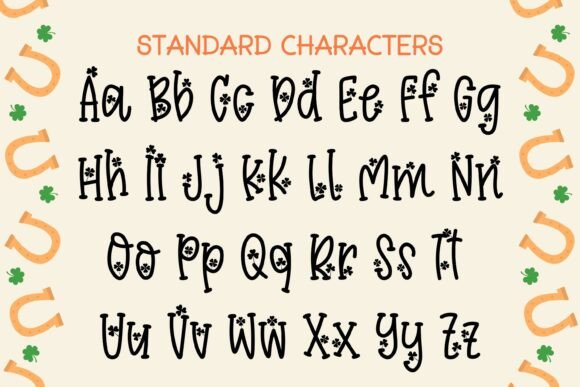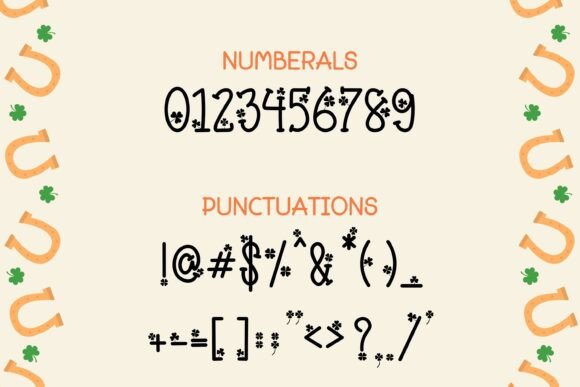
Clover Pop Font: Add a Touch of Luck and Whimsy to Your Designs 🍀
Are you looking for a font that can bring a dash of luck, cheerfulness, and playfulness to your designs? Look no further than Clover Pop, a delightful display font that’s perfect for a variety of creative projects. This charming font is adorned with lovely clover leaves, making it an ideal choice for St. Patrick’s Day projects, greeting cards, stickers, kids’ designs, logos, posters, social media, crafts, and more.
What Makes Clover Pop Font So Special?
Clover Pop is a carefully crafted font that features small clover details on each character, giving your text a fun, friendly, and unique appearance. The font’s design is inspired by the symbolism of clover leaves, which are often associated with good luck, prosperity, and happiness. With Clover Pop, you can add a touch of whimsy and magic to your designs, making them stand out from the crowd.
Clover Pop font is incredibly versatile and can be used for a wide range of design projects, including:
- St. Patrick’s Day projects: Add a touch of Irish charm to your St. Patrick’s Day designs, such as greeting cards, posters, and social media graphics.
- Greeting cards: Create cheerful and playful greeting cards for special occasions, like birthdays, holidays, and get-well wishes.
- Stickers: Design fun and colorful stickers for kids, parties, or events.
- Kids’ designs: Create engaging and interactive designs for kids, such as children’s books, educational materials, or activity sheets.
- Logos: Use Clover Pop font to create a unique and memorable logo for your business or brand.
- Posters: Design eye-catching posters for events, promotions, or awareness campaigns.
- Social media: Add a touch of personality to your social media graphics, such as Facebook posts, Instagram stories, or Twitter headers.
- Crafts: Use Clover Pop font to create handmade crafts, such as scrapbooking, card making, or DIY projects.
Why Choose Clover Pop Font?
Here are just a few reasons why Clover Pop font is a great choice for your design projects:
- Cute and playful: Clover Pop font is designed to bring a smile to your face, making it perfect for designs that require a touch of whimsy and fun.
- Lucky charm: The clover leaf design element is a classic symbol of good luck, making it a great choice for projects that require a positive and uplifting vibe.
- Unique and eye-catching: The small clover details on each character make Clover Pop font stand out from other fonts, ensuring your designs get noticed.
- Easy to use: Clover Pop font is a display font that’s easy to use and pairs well with a variety of other fonts, making it simple to incorporate into your designs.
Tips for Using Clover Pop Font
Here are a few tips for getting the most out of Clover Pop font:
- Use it sparingly: Clover Pop font is a display font, so it’s best used sparingly to add emphasis or create visual interest.
- Pair it with complementary fonts: Experiment with pairing Clover Pop font with other fonts to create a unique and visually appealing design.
- Experiment with colors: Clover Pop font looks great in a variety of colors, so don’t be afraid to experiment and find the perfect hue for your design.
In conclusion, Clover Pop font is a delightful and versatile font that’s perfect for designers and crafters looking to add a touch of luck, whimsy, and fun to their designs. With its cute and playful design, unique clover leaf details, and ease of use, Clover Pop font is sure to become a favorite in your design arsenal. So why not give it a try and see how it can bring a smile to your face and a touch of magic to your designs? 🍀
| Font Name | Clover Pop Font |
| Author | Adalin Digital |